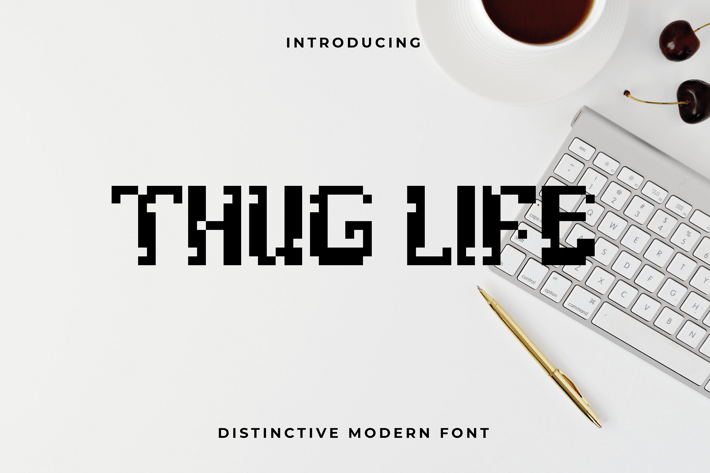
Thug Life - Pixel Font
Thug Life is a crafty and distinctive display font. With shapes of pixel-art, it's masterfully designed to become a true favorite, this font has the potential to bring each of your creative ideas to the highest level!